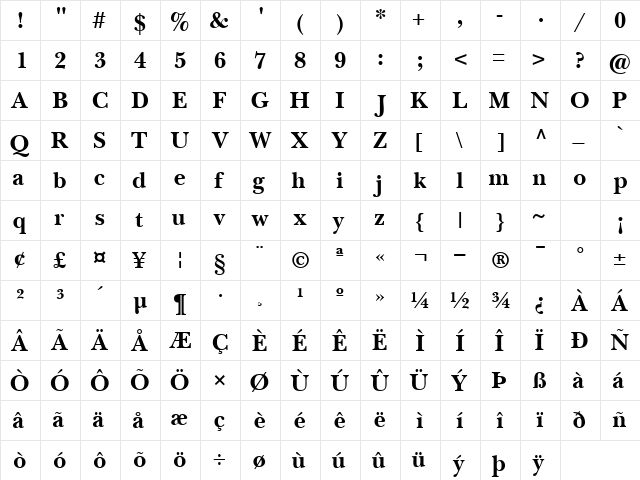
BaskervilleBlackSSK Regular
Design Context for BaskervilleBlackSSK Typeface
BaskervilleBlackSSK is a composed and adaptable typeface that performs quietly and consistently across a wide range of design contexts.
Pro Tip: Use BaskervilleBlackSSK in both headline and body roles to test its range before committing to a single application.